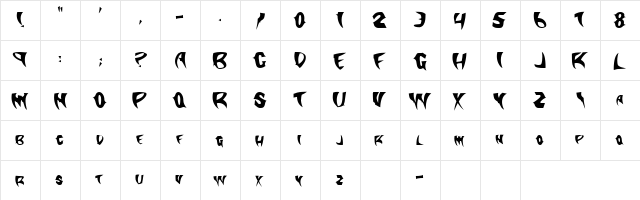
Klinglish Regular
Design Context for Klinglish Typeface
Klinglish is a composed and adaptable typeface that performs quietly and consistently across a wide range of design contexts.